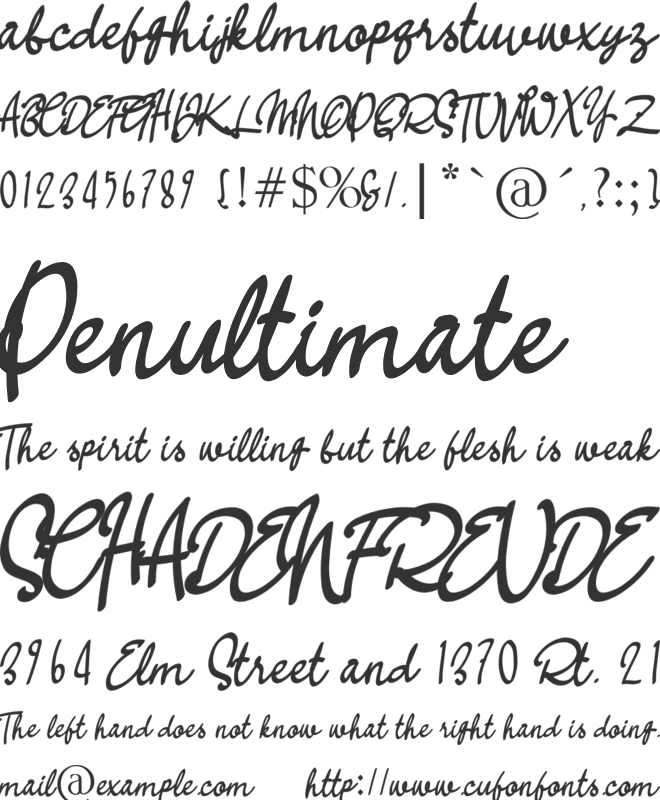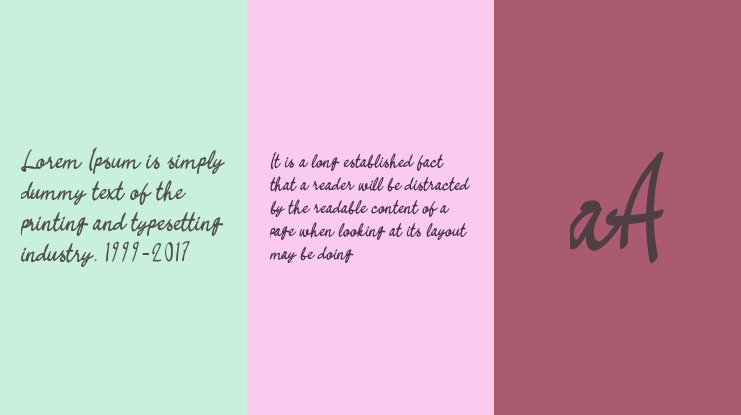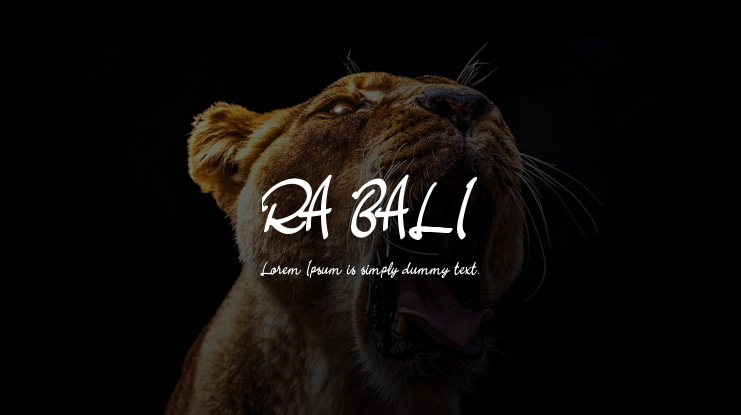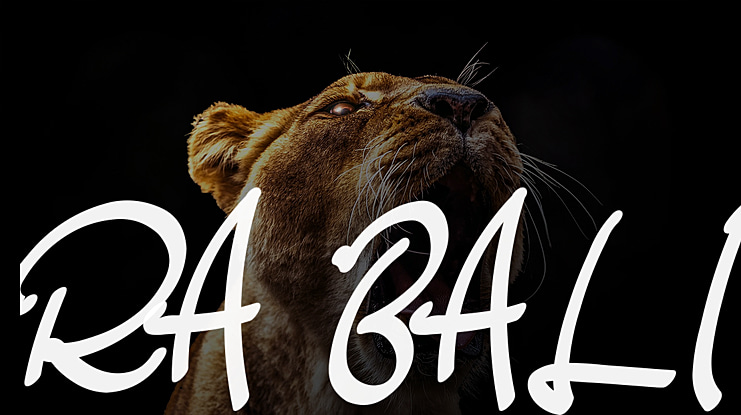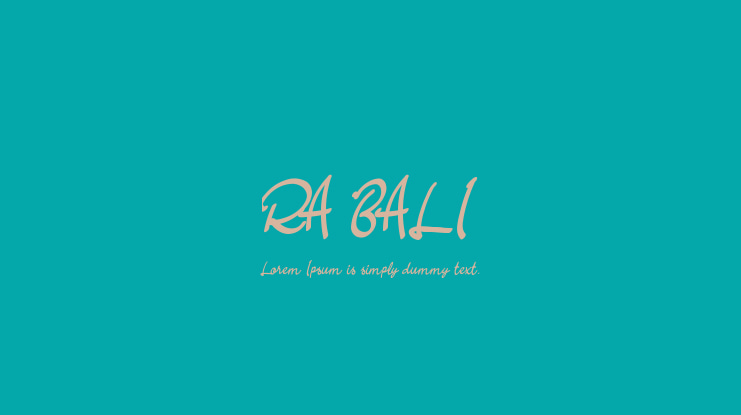
RA BALI Font
Ra Bali is a stylish, elegant and graceful Calligraphy Script font with Uppercase, Lowercase and Numeric and Punctuation sets that are quite complete, I create for you to download for Free.